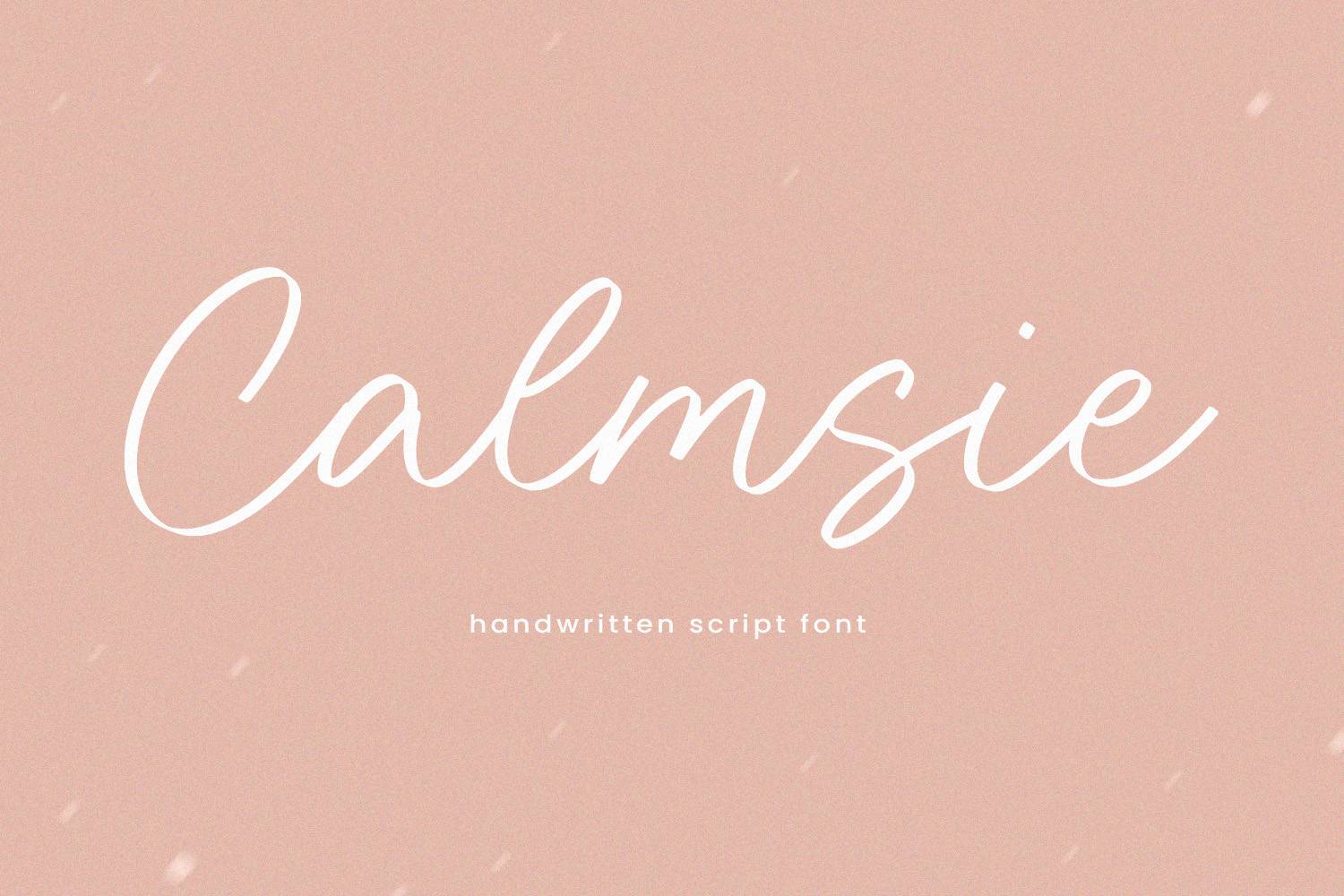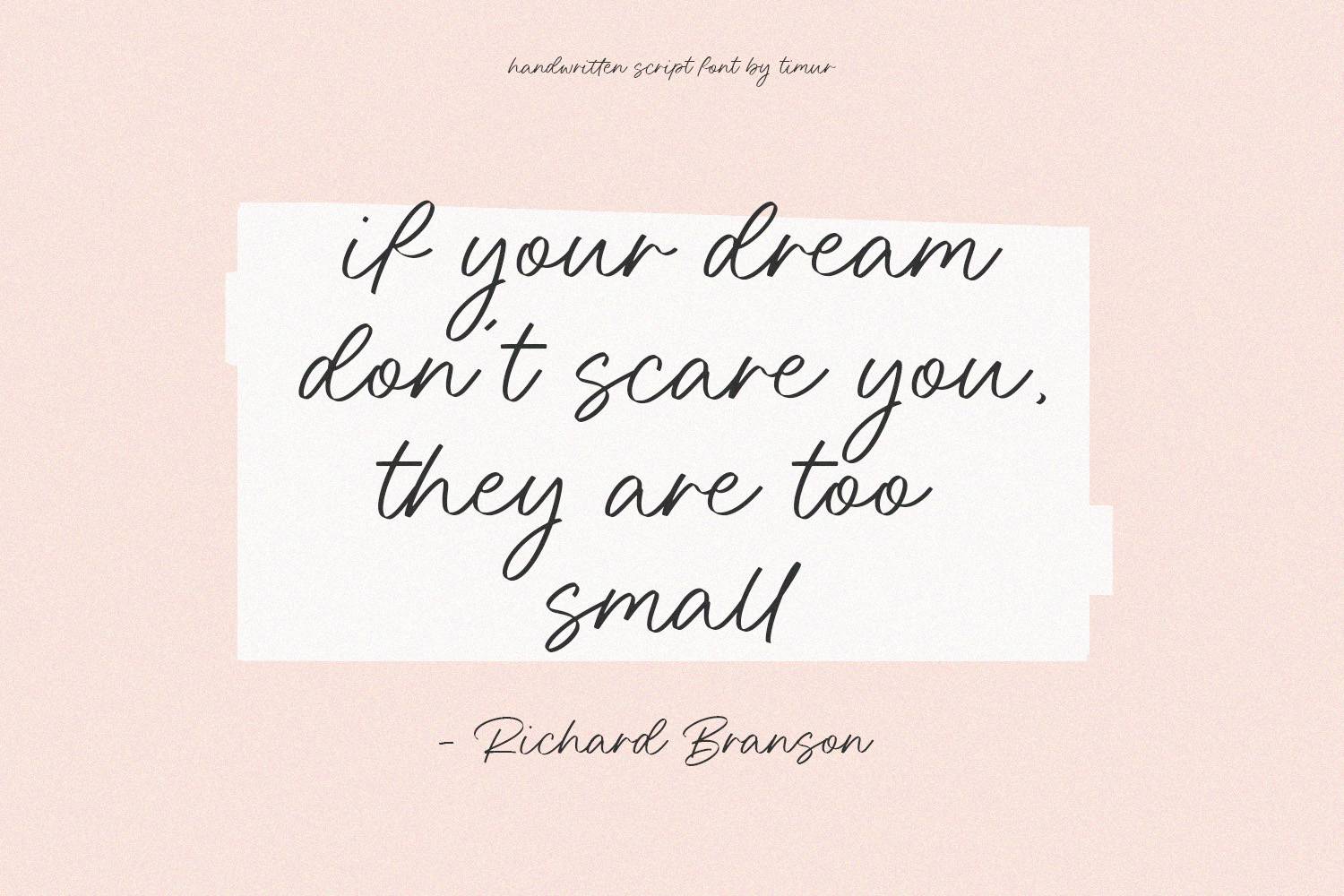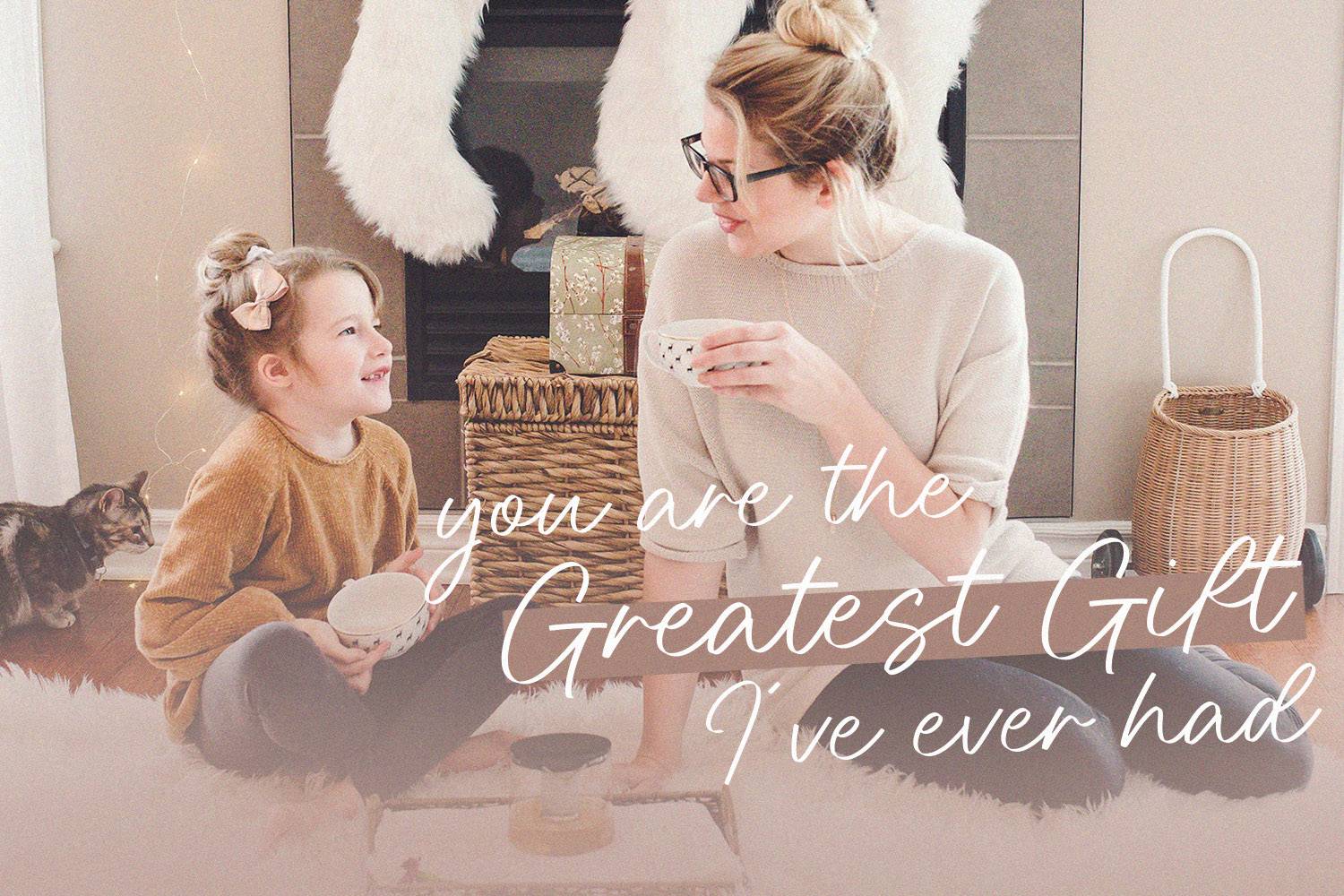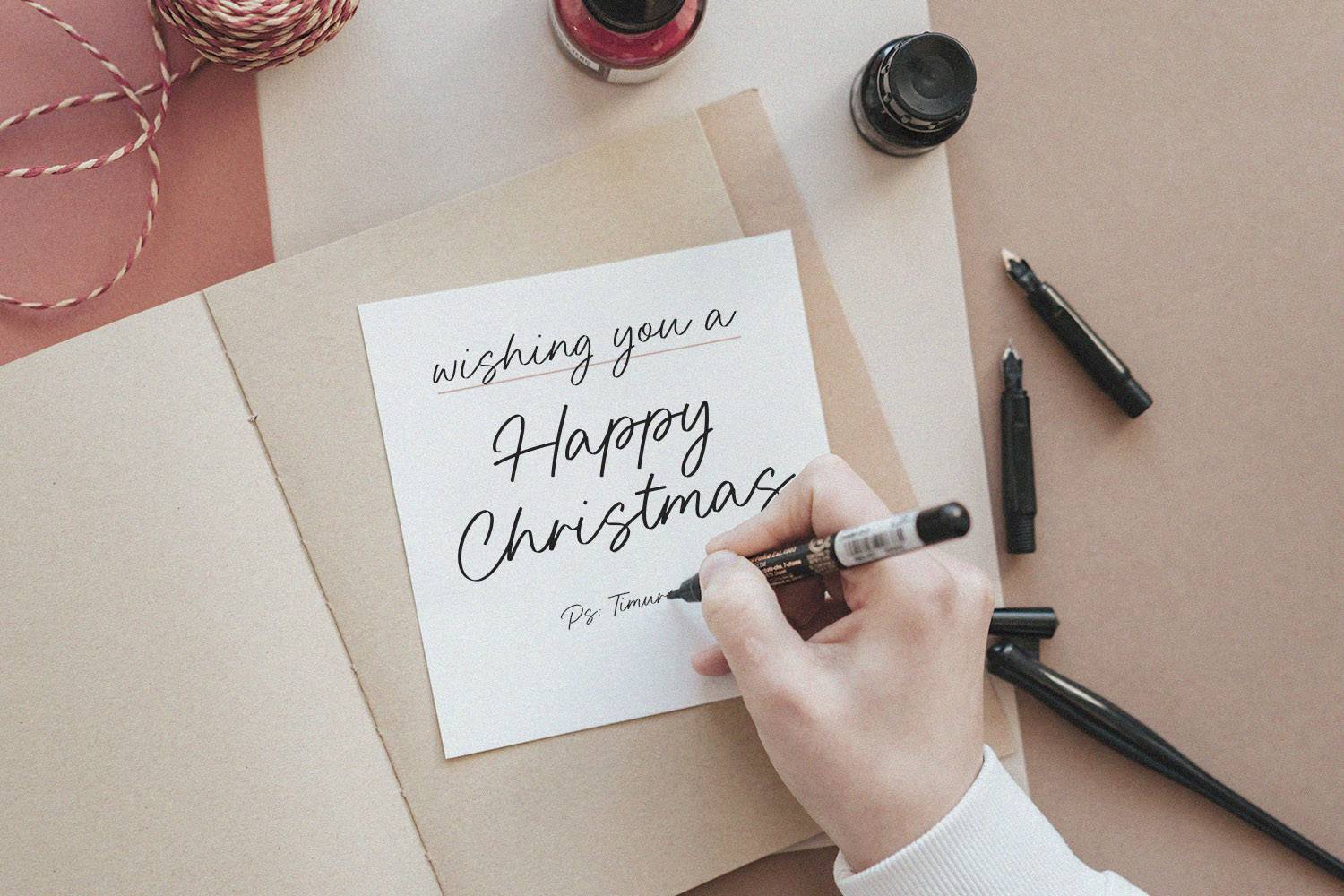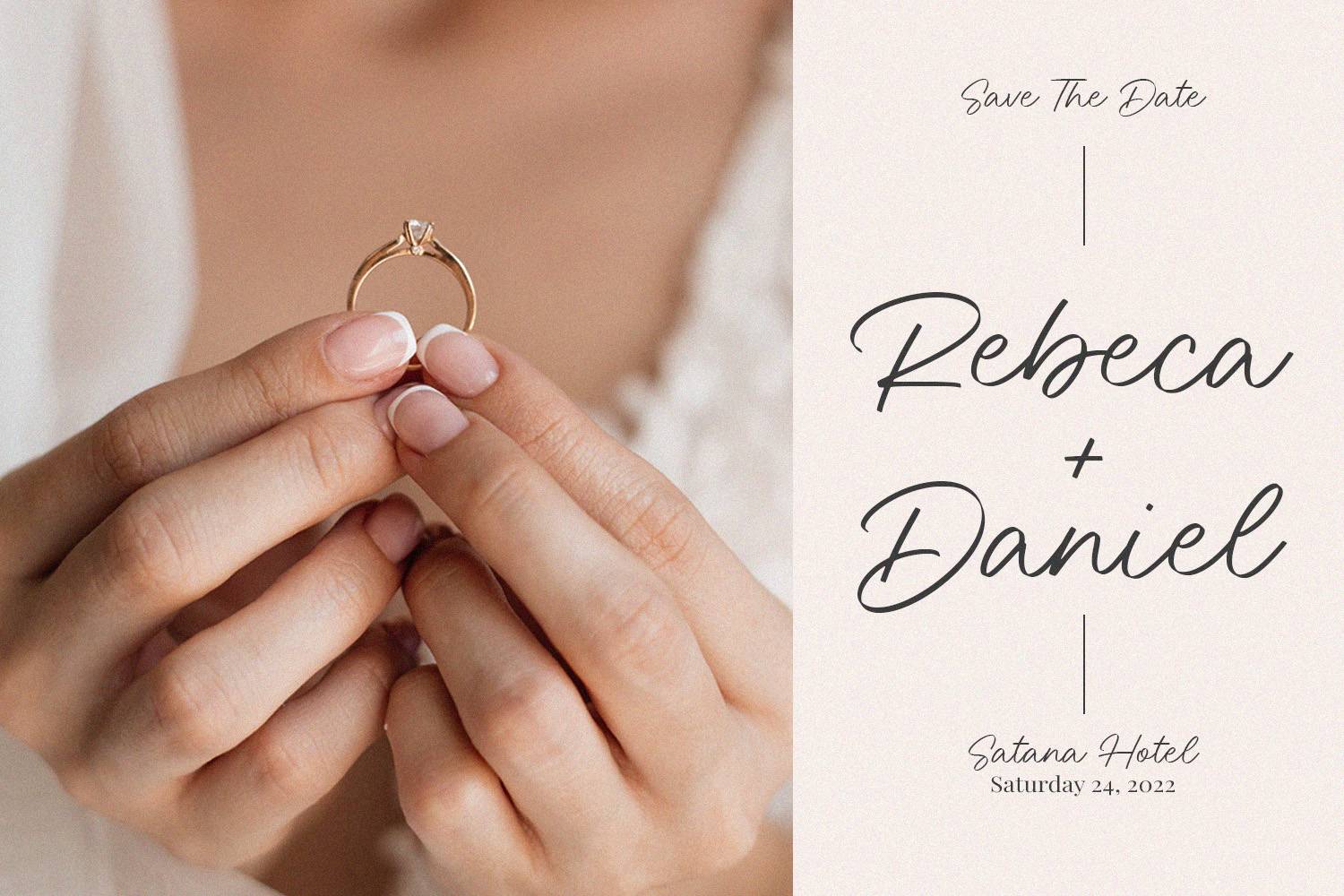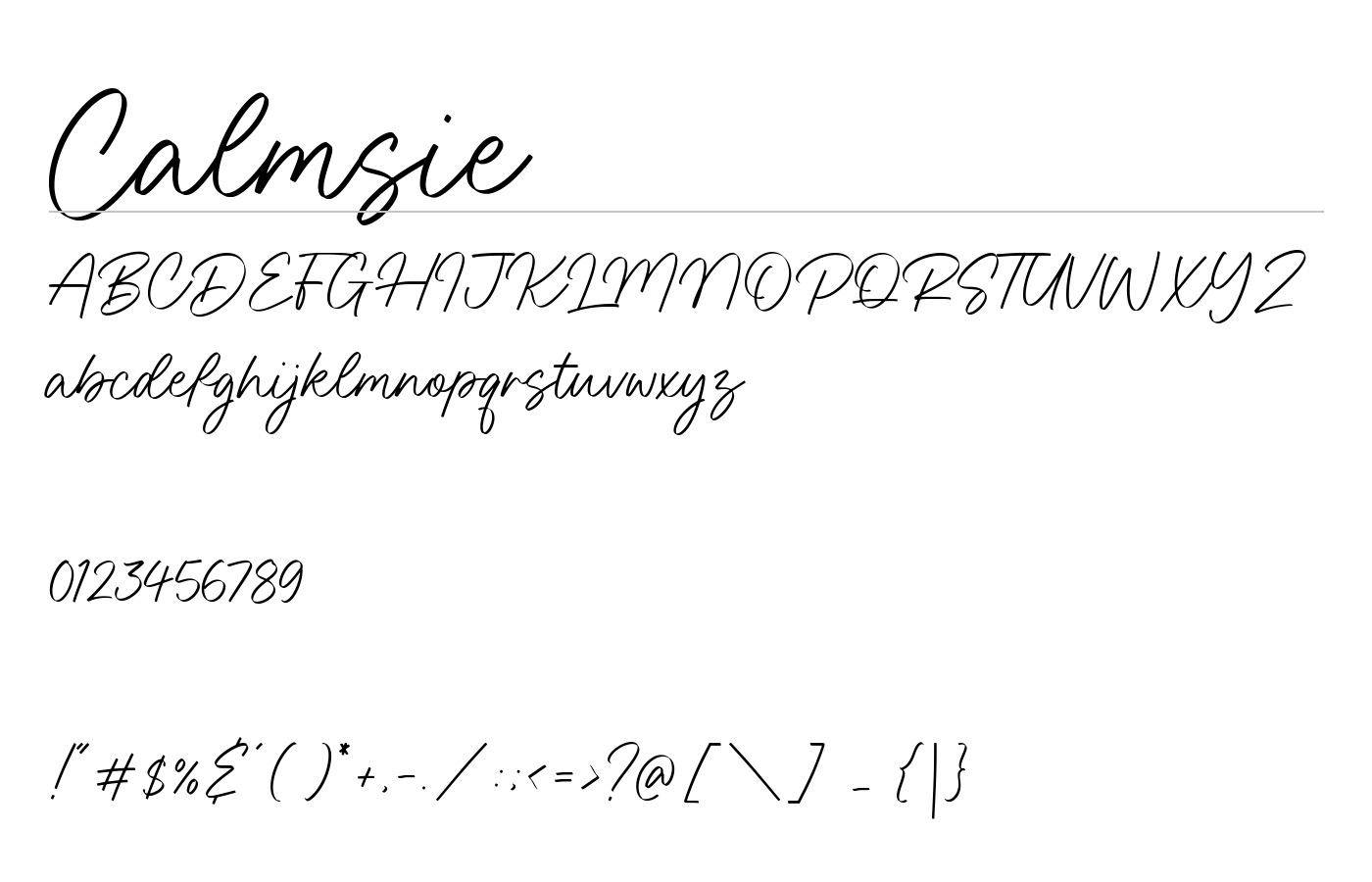
Calmsie is an elegant, light script font characterized by its graceful, flowing letterforms and handwritten style. Its slender strokes and natural, casual curves convey a sense of warmth and sophistication, making it ideal for invitations, branding, and creative projects that seek a personal and refined touch. This font works beautifully in logos, social media graphics, and editorial layouts where a stylish yet approachable handmade feel is desired.
Calmsie Font